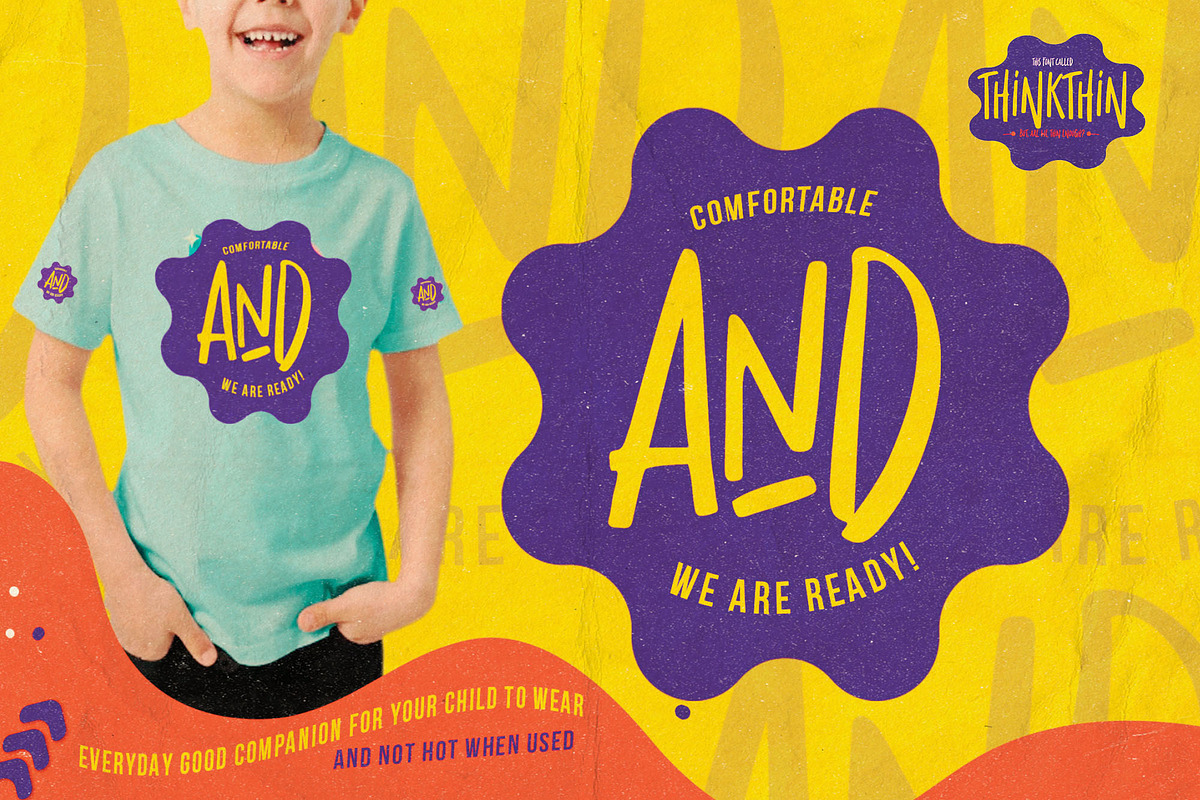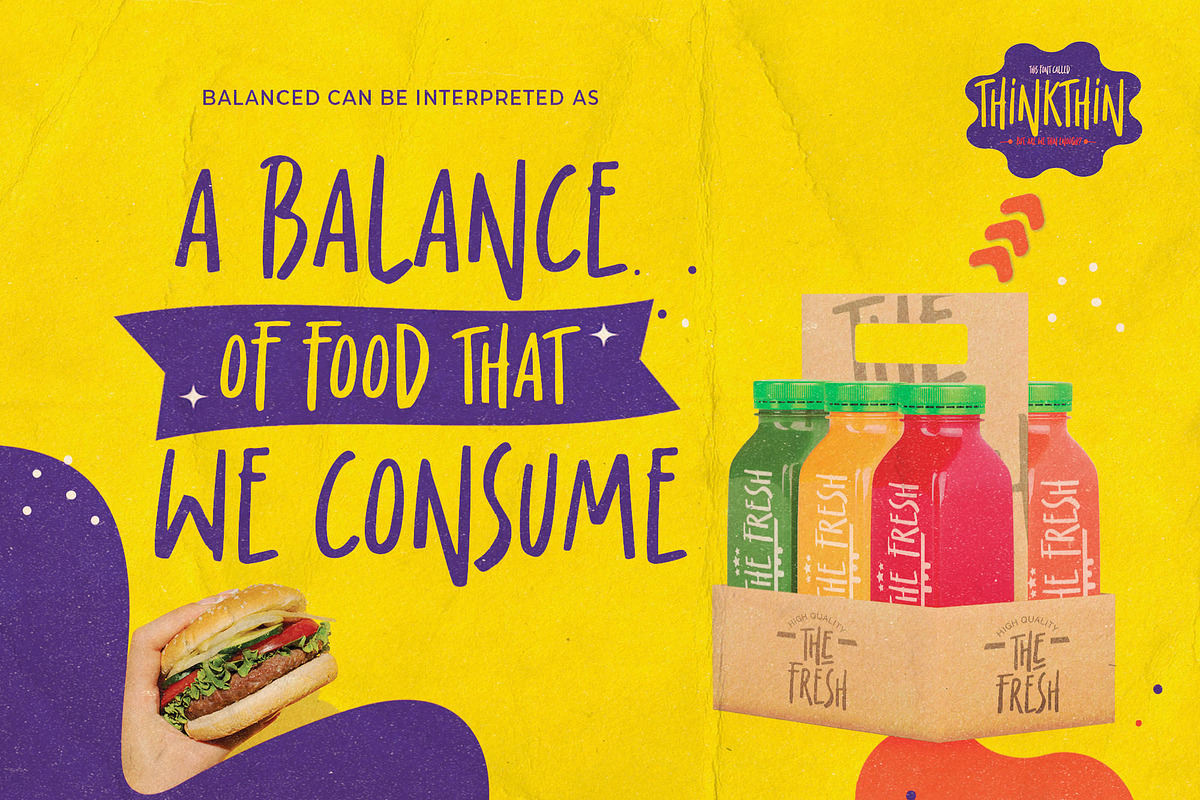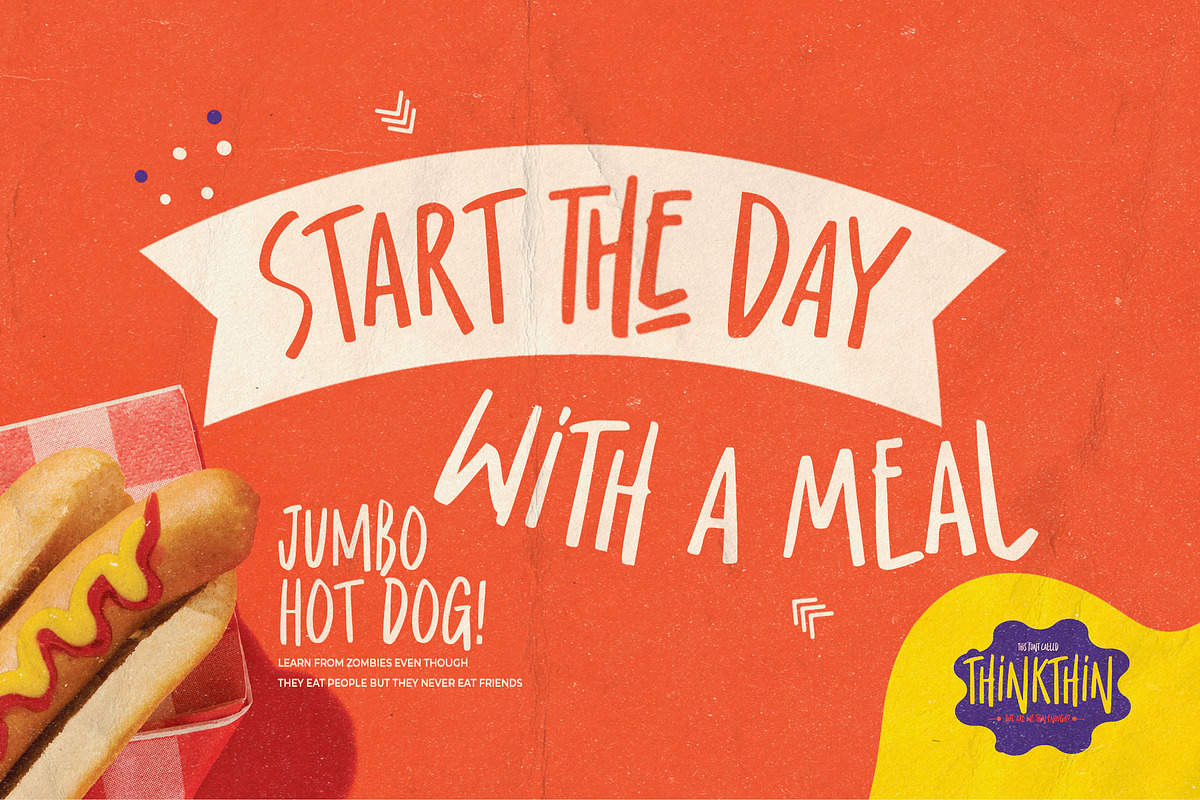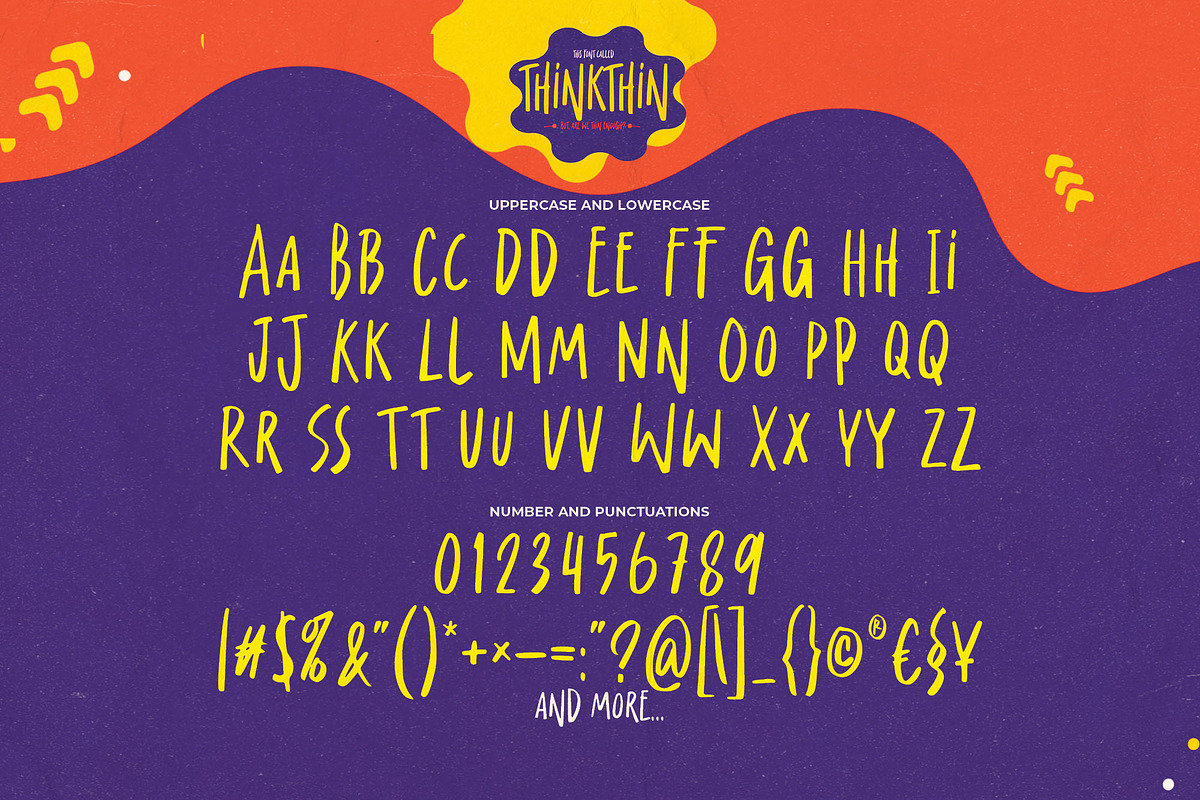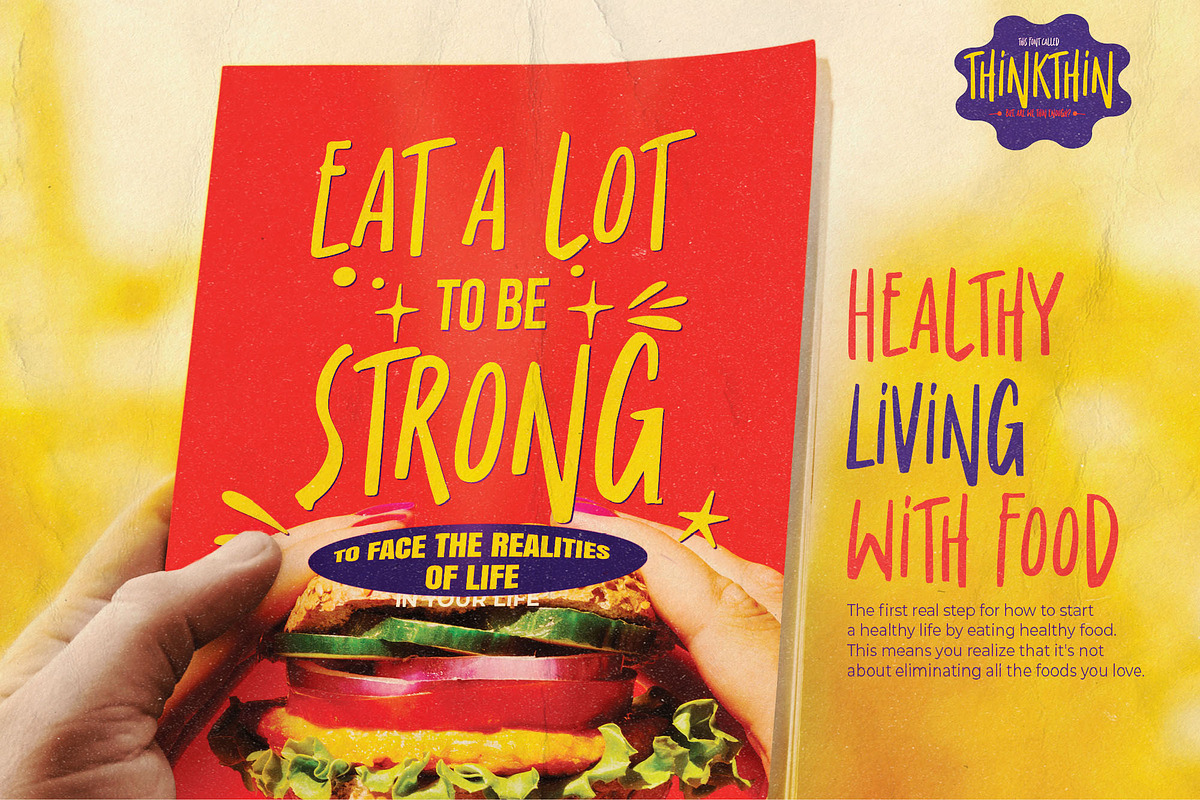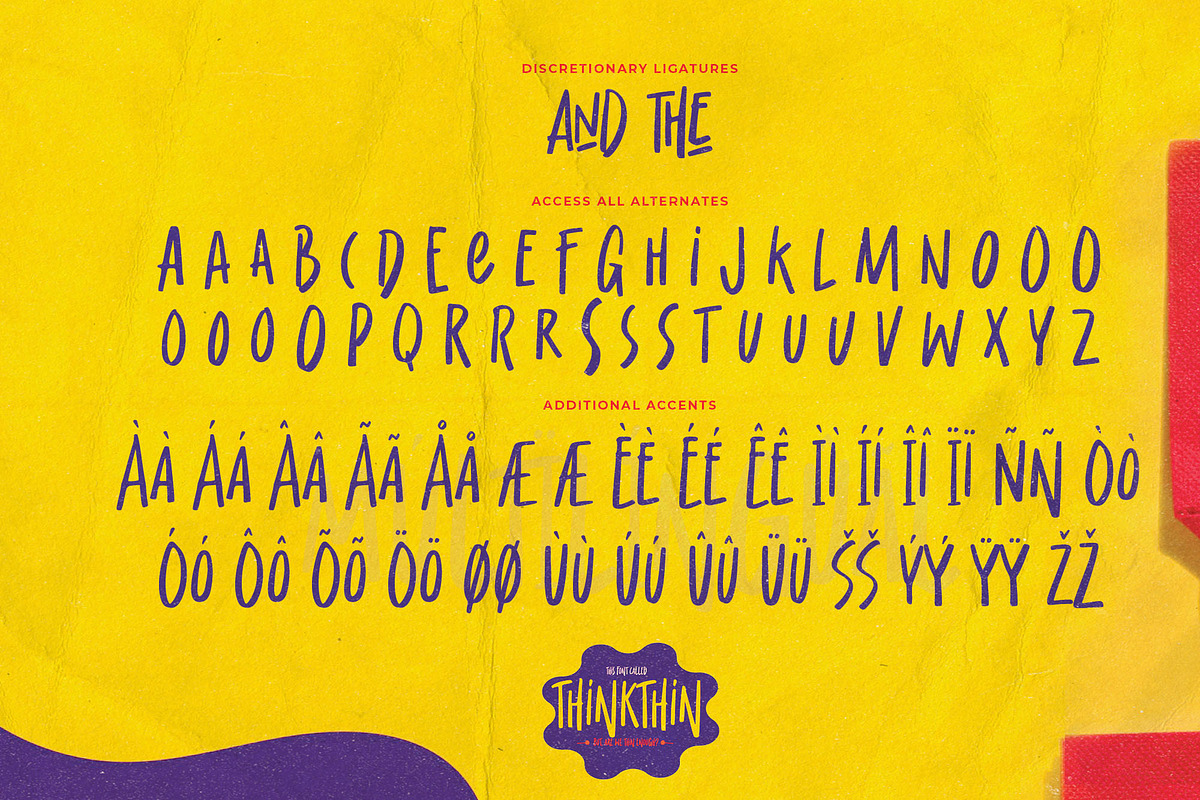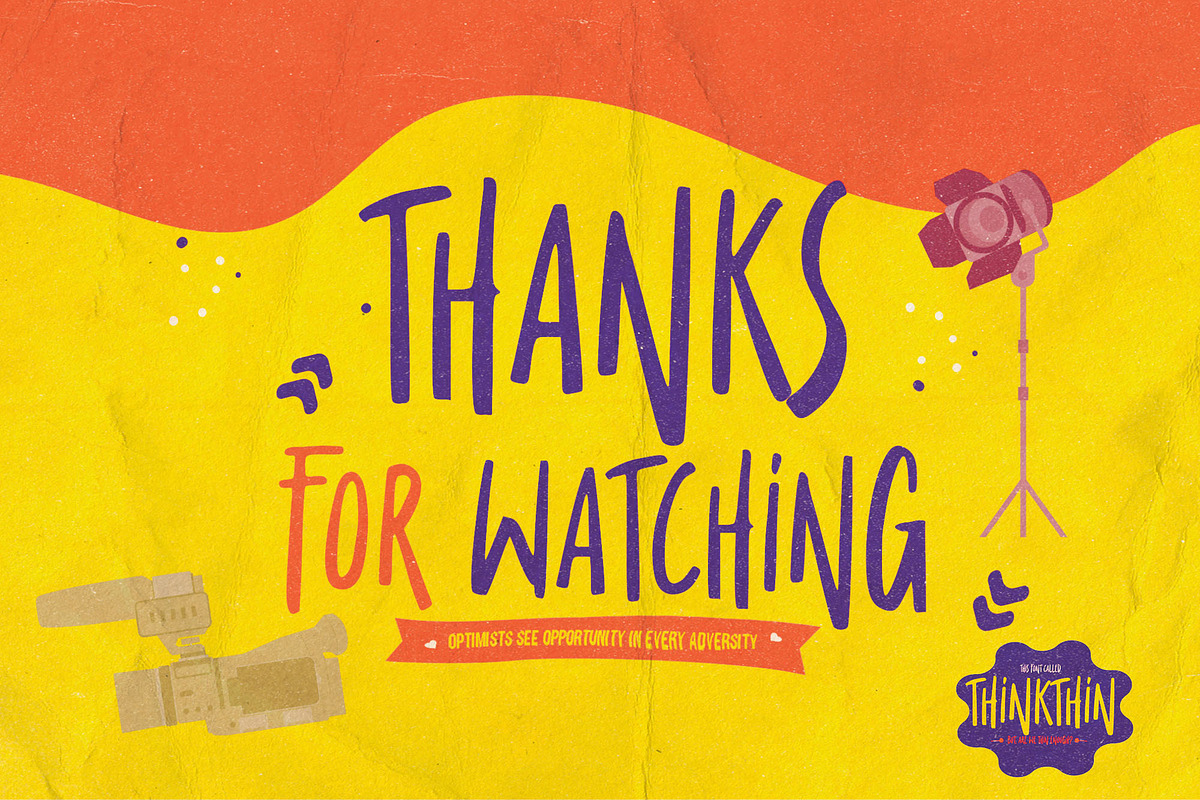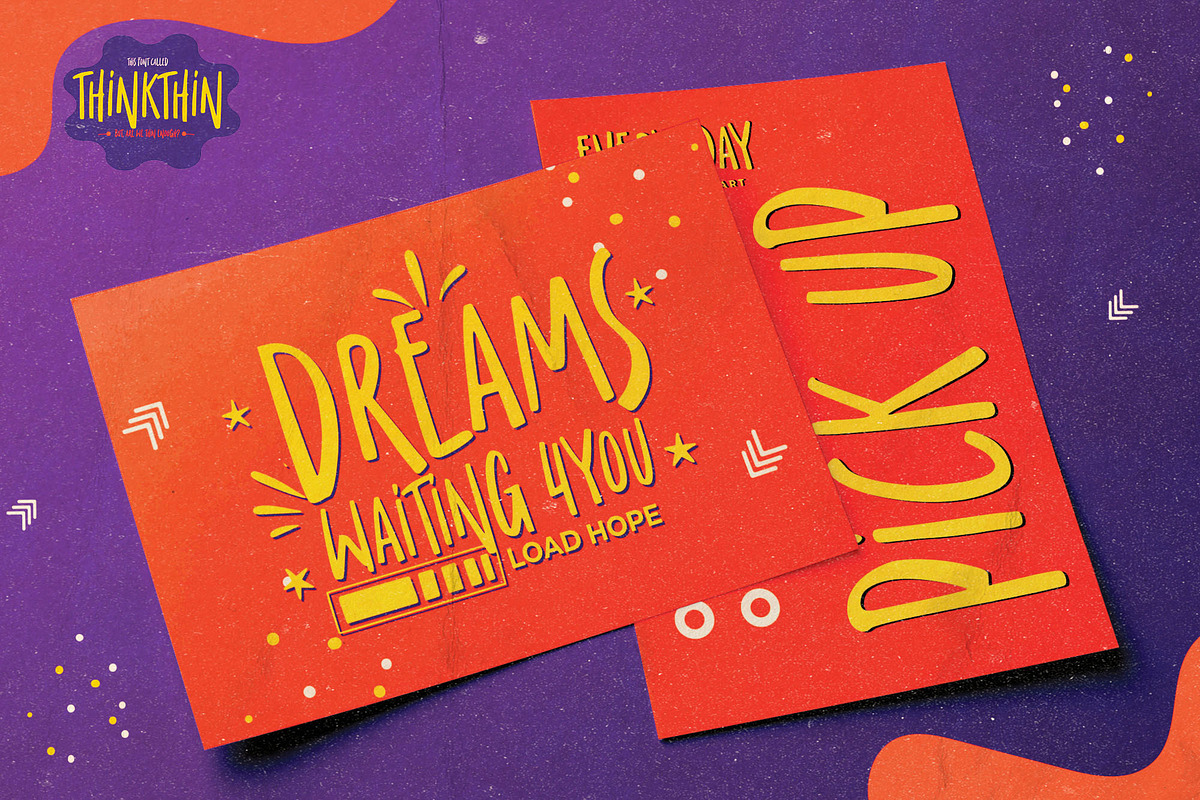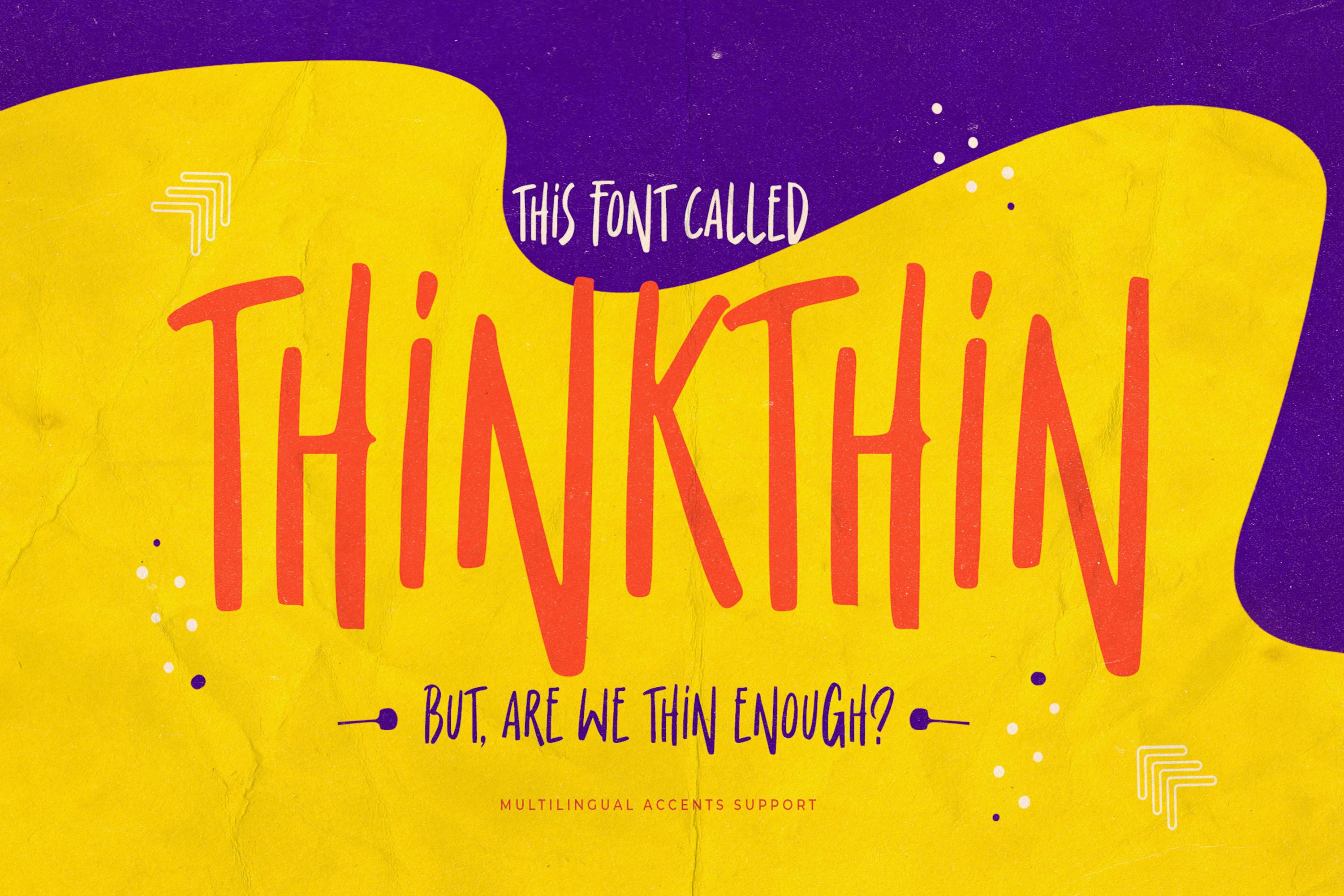
Thinkthin - Display Thin Font
Hello Everyone, introduce our new product Font Thinkthin This Is Display Thin Font.This is a Textured Natural Style and classy style with a clear style and dramatic movement.
This font Thinkthin is great for your next creative project such as logos, printed quotes, invitations, cards, product packaging, headers, Logotype, Letterhead, Poster, Design this font is great for your creative projects such as watermark on photography, and perfect for logos & branding, invitation,advertisements,product designs, stationery, wedding designs,label ,product packaging, special events or anything that need handwritting taste.
That is has charming, authentic and relaxed characteristic more natural look to your text.
You can activate 2 Ligatures and 42 Alternate glyphs OpenType panel.